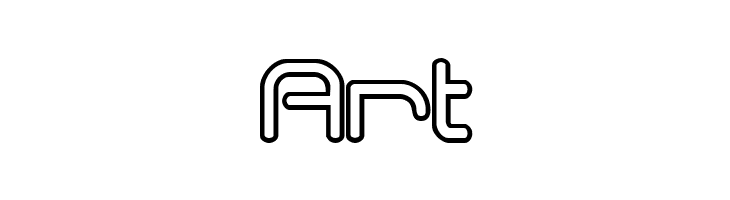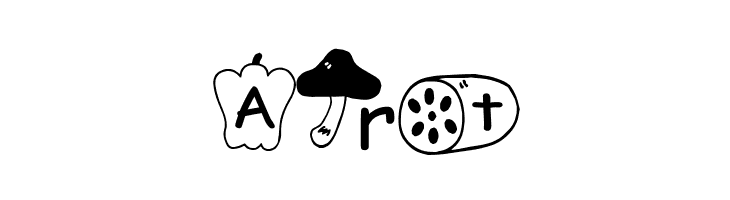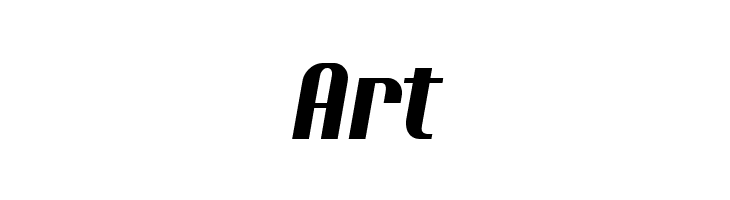
A bold, 3D block font with a modern, geometric style and shadow effect.
A bold, modern font with clean, geometric shapes and strong impact.
A futuristic, hollow, and rounded font with a geometric design.
A bold, retro-inspired font with starburst effects and outlined characters.
A decorative serif font with floral patterns in uppercase letters.
A classic serif font inspired by ancient Greek letterforms, offering elegance and readability.
A modern serif font with sharp, angular serifs and clean lines.
A modern, italicized, and condensed font with a sleek and dynamic style.